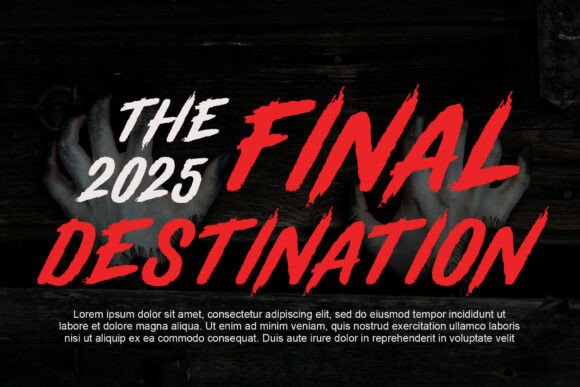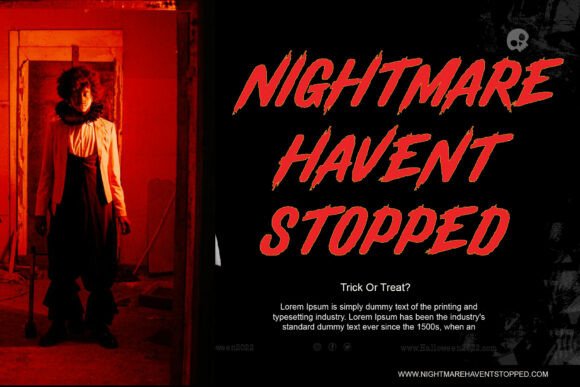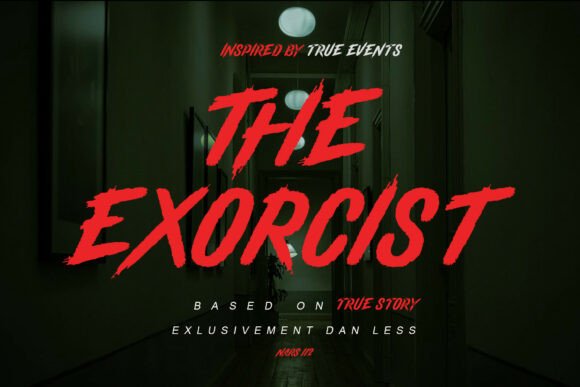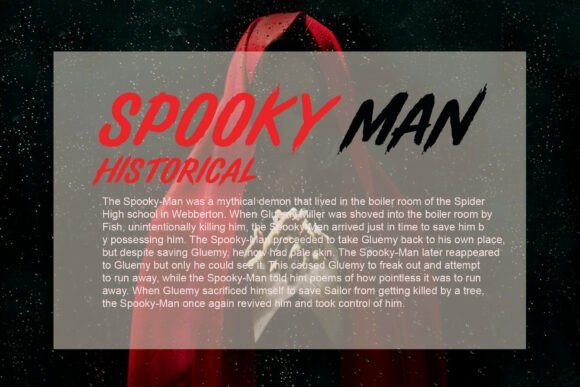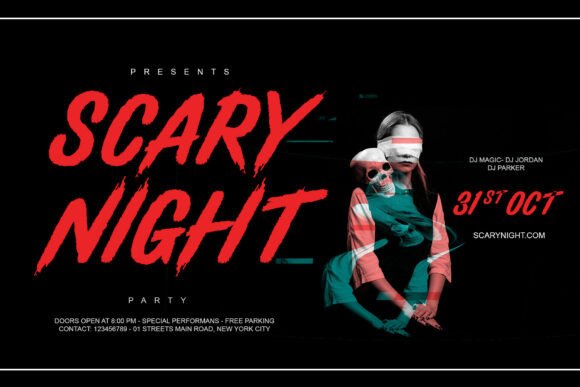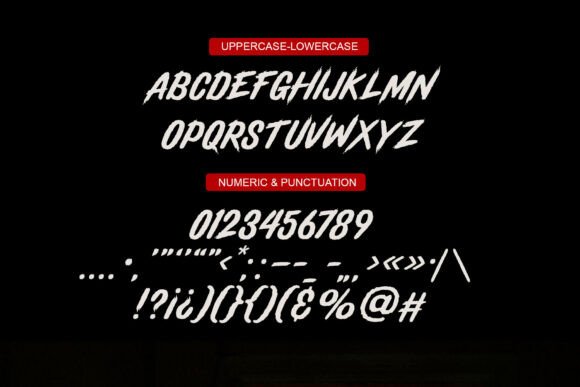
Unleash the Horror with Another Halloween Font
Are you looking for a font that can add a spine-tingling touch to your designs? Look no further than Another Halloween Font, a high-impact, aggressive display font designed for intense visual storytelling. This decorative font is perfect for horror-themed cinematic headers, high-energy event marketing, edgy apparel branding, and atmospheric social media graphics intended for scary moments.
Design Features
Another Halloween Font features massive, slanted letterforms characterized by a raw, textured edge that mimics dry-brush strokes and splattered ink. The design is defined by sharp, irregular terminals and an energetic visual flow that provides a sense of immediate, customized urgency. The font’s distressed texture gives it a bold, eye-catching appearance that’s sure to grab attention.
Perfect for Horror-Themed Designs
If you’re looking for a font that can help you create a spooky atmosphere, Another Halloween Font is the perfect choice. Its aggressive design and distressed texture make it ideal for horror-themed cinematic headers, event marketing, and social media graphics. The font’s high-impact appearance is sure to send chills down the spine of your audience.
- High-impact, aggressive design: Another Halloween Font is designed to make a statement, with massive, slanted letterforms that demand attention.
- Distressed texture: The font’s raw, textured edge gives it a bold, eye-catching appearance that’s perfect for horror-themed designs.
- Perfect for cinematic headers: The font’s sharp, irregular terminals and energetic visual flow make it ideal for horror-themed cinematic headers.
- Great for event marketing: Another Halloween Font is perfect for high-energy event marketing, such as Halloween parties or horror movie premieres.
- Edgy apparel branding: The font’s aggressive design makes it perfect for edgy apparel branding, such as horror-themed t-shirts or hoodies.
- Atmospheric social media graphics: Another Halloween Font is ideal for creating atmospheric social media graphics intended for scary moments.
Tips for Using Another Halloween Font
To get the most out of Another Halloween Font, here are a few tips:
- Use it sparingly: Due to its high-impact design, Another Halloween Font is best used sparingly to avoid overwhelming your audience.
- Pair it with a simple font: Pair Another Halloween Font with a simple font to create a striking contrast and make your design stand out.
- Experiment with colors: The font’s distressed texture looks great with bold, bright colors, so don’t be afraid to experiment and find the perfect combination for your design.
Another Halloween Font is a premier asset for designers and crafters looking to add a spooky touch to their designs. Its high-impact, aggressive design and distressed texture make it perfect for horror-themed cinematic headers, high-energy event marketing, edgy apparel branding, and atmospheric social media graphics. With its sharp, irregular terminals and energetic visual flow, Another Halloween Font is sure to send chills down the spine of your audience.
Get Ready to Make a Statement